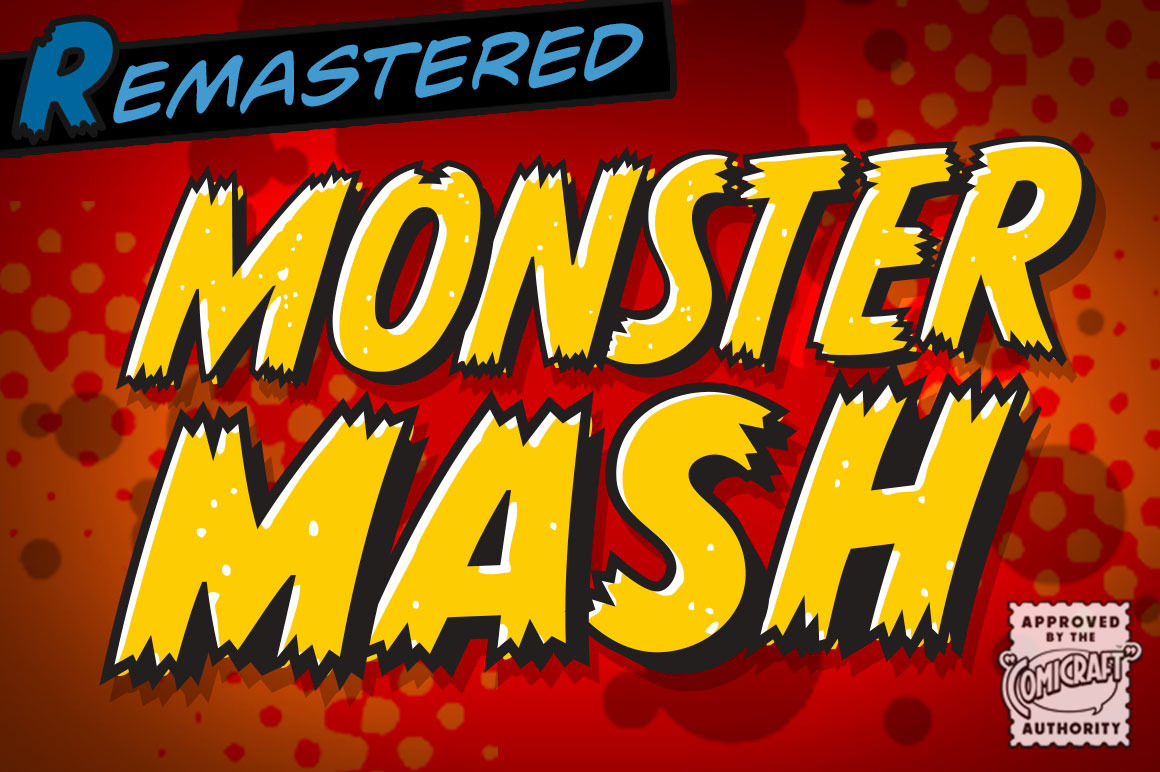
Monster Mash - a ragged comic font
While working on our Macs late at night, Our Eyes beheld an Eerie Type: It's called The Mash! It's called MONSTER MASH!